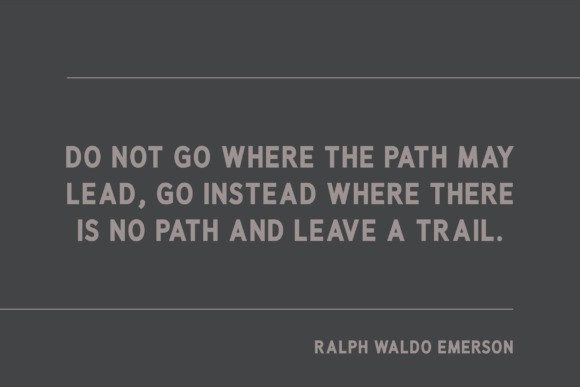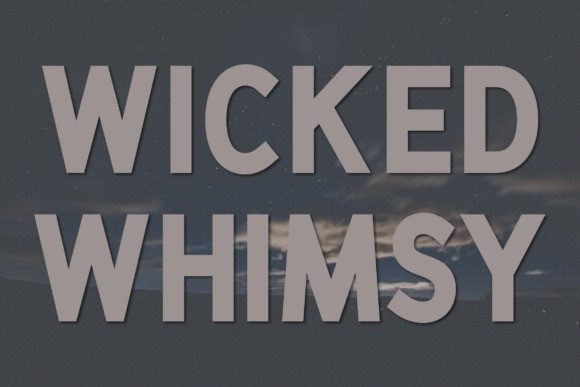
Wicked Whimsy Font
Wicked Whimsy Font is a bold, modern sans-serif display font with a touch of playful darkness.Crafted to stand out in both digital and print settings, its sharp edges and clean structure are balanced with subtle quirks, making it perfect for projects that need attitude and originality. Whether you’re designing Halloween graphics, edgy branding, music posters, or gothic-inspired apparel, Wicked Whimsy delivers impact with style.
The font includes uppercase letters, numerals, and essential punctuation—ready for anything from headlines to merch. Its slightly mysterious tone is softened by geometric consistency, giving it an alluring mix of precision and personality. If you’re looking for a typeface that’s strong, stylish, and just a little mischievous, Wicked Whimsy fits the bill perfectly.